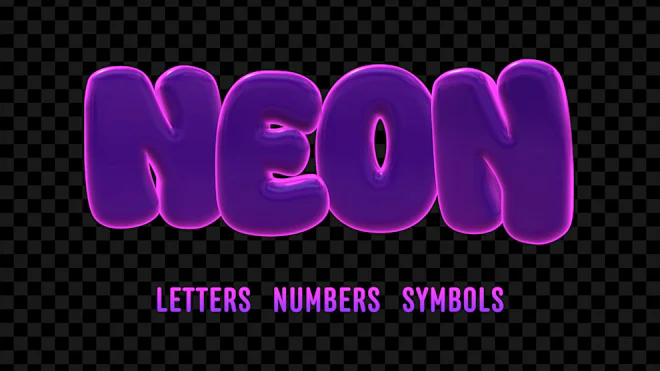
This stock motion graphics video pack includes 48 clips of Cyber Monday neon purple balloon letters, numbers, and symbols on a transparent alpha channel in a seamless loop.